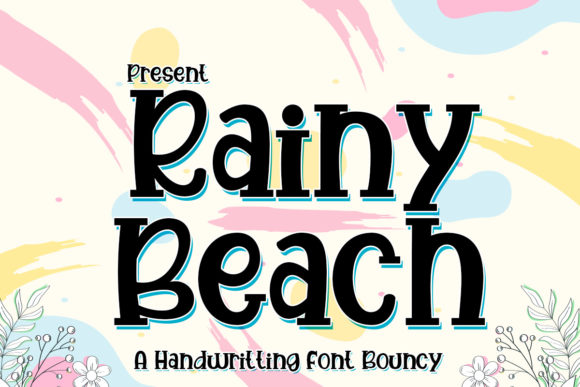
Dive into the world of Rainy Beach Font, a delightful display font that will make your designs burst with joy! Let your imagination sail away with this charming typeface, perfect for crafting captivating packaging that exudes a warm and playful vibe. Picture your products adorned with the whimsical curves of Rainy Beach Font, inviting customers to embark on an enchanting journey.
Immerse yourself in the vibrant world of Rainy Beach Font, where creativity knows no bounds. Whether you're designing captivating logos that demand attention or crafting eye-catching posters that ignite imaginations, this font is your perfect companion. Its playful spirit shines through in every letterform, adding a touch of magic to your designs.
Step into a realm of limitless possibilities with Rainy Beach Font. Unleash your inner child and create whimsical invitations that transport recipients to a world of wonder. Let the flowing lines of this font carry your words, inviting friends and loved ones to join you on extraordinary adventures.
With Rainy Beach Font as your secret weapon, you'll captivate audiences and leave a lasting impression. Its unique charm will make your designs stand out, ensuring that your message reaches hearts and minds. Embrace the power of Rainy Beach Font and unlock the door to a world of creative possibilities.